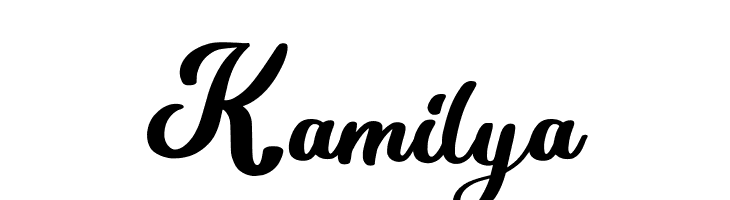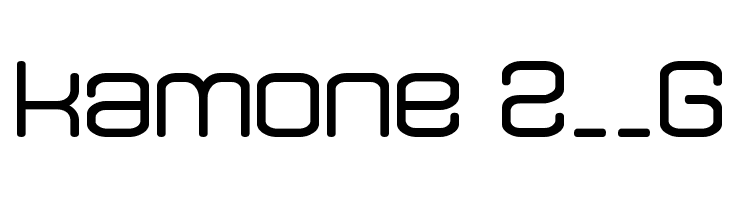
A rustic, handcrafted font with playful, uneven strokes and a whimsical charm.
A bold, playful, hand-drawn font with a casual and friendly feel.
A bold, expressive script font with flowing, cursive letterforms and a hand-drawn appearance.
A playful and informal handwritten font with dynamic letterforms.
A bold, impactful font with thick, uniform strokes and a strong presence.
A bold, impactful typeface with strong, block-like characters.
A bold, italicized font with a modern, dynamic style and condensed width.
A bold, italicized font with high contrast and tight spacing, perfect for impactful headlines.
A bold, italic, and condensed font with a dynamic and energetic style.
A bold, italic, and condensed font with a modern and dynamic style.
A bold, condensed sans-serif font with modern, clean lines.
A bold, narrow font with strong visual impact and consistent stroke width.
A bold, stencil-style font with high contrast and geometric shapes.
A playful, handwritten font with fluid, flowing letterforms and a casual style.
A playful, hand-drawn font with tall, narrow letters and a whimsical style.
A bold, modern sans-serif font with clean lines and uniform strokes.
A modern, italic typeface with bold, condensed characters and low contrast.
A playful, hand-drawn font with bold, flowing strokes and whimsical curves.
An elegant script font with flowing, ornate swashes and flourishes.
A decorative font with ornate, wing-like frames around each character, exuding a gothic or fantasy style.
A bold, geometric font with a modern and clean aesthetic.
A playful, bold handwritten font with a smooth, rounded style.
A bold, brush-style font with an energetic and textured appearance.
A bold, brush-style font with dynamic, hand-drawn characteristics.
A modern, geometric sans-serif font with clean lines and balanced spacing.